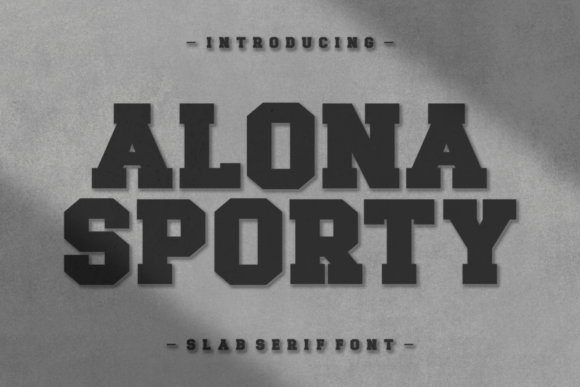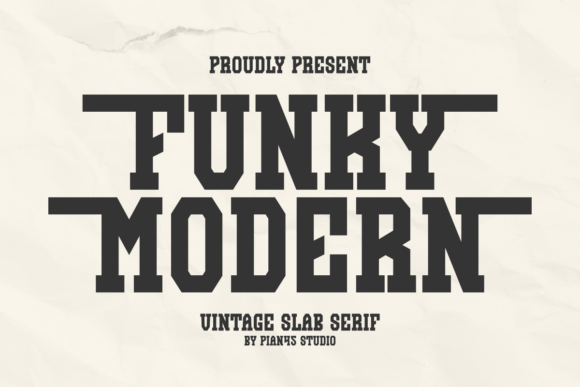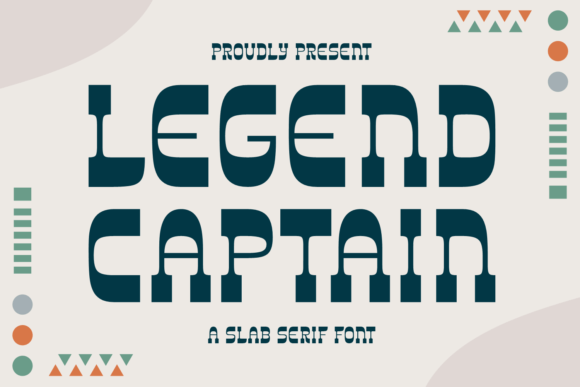
Slab Series: A Modern Slab Serif for Bold Branding
As a graphic designer, I recently embarked on a project to create a visual identity for a local café, and I decided to test Slab Series, a modern slab serif typeface that exudes authority and authenticity. With its bold and commanding presence, this font adds a touch of sophistication to any design project.
Slab Series in Logo Design and Brand Identity
One of the first steps in any branding project is logo design. I opened my design software and started experimenting with Slab Series. The font's strong, geometric lines and solid serifs made it an excellent choice for a café that wants to convey a sense of reliability and quality. I sketched out a few logo concepts, and the Slab Series font stood out, providing a perfect balance of elegance and strength.
Using Slab Series for Packaging Design and Product Labels
Next, I moved on to packaging design. The café needed labels for their coffee bags, and I wanted to ensure that the font would be both readable and visually appealing. Slab Series proved to be a great fit. Its clear, bold characters made the product information easy to read, even from a distance. The font's sophisticated look also added a premium feel to the packaging, which was exactly what the client was looking for.
Slab Series in Social Media Graphics and Editorial Design
For the café's social media graphics, I used Slab Series as the headline font. The font's commanding presence made it ideal for grabbing attention in a crowded feed. Whether it was a post about a new menu item or a special event, Slab Series helped to create a consistent and professional brand image across all platforms.
In editorial design, such as the café's menu and promotional flyers, Slab Series worked beautifully as both a display and supporting typeface. The font's boldness made it perfect for section headings, while its clean lines allowed it to blend seamlessly with other fonts in the body text. This versatility was a significant advantage, as it maintained the brand's cohesive look without sacrificing readability.
Slab Series in Website Headers and Digital Templates
When it came to the café's website, I used Slab Series in the header and key sections. The font's strong, authoritative style made the site feel more professional and trustworthy. For digital templates, such as email newsletters and online forms, Slab Series added a touch of elegance and consistency, making the café's digital presence just as impressive as its physical one.
Practical Advice for Testing Slab Series in Your Brand System
Before fully committing to Slab Series for your branding project, it's essential to test it in various contexts. Start by creating a mood board and experimenting with different font sizes, colors, and backgrounds. This will help you see how the font performs in different scenarios. Additionally, consider how Slab Series pairs with other fonts. For example, it can work well with a sans serif font for a modern, clean look, or with a script font for a more elegant, traditional feel.
Font Pairing and Additional Features of Slab Series
Slab Series offers a range of styles and weights, which can be incredibly useful for creating a comprehensive brand system. I found that the included alternates and ligatures added a unique, personalized touch to the café's branding. Additionally, the multilingual support and commercial licensing options made it a practical choice for a business with diverse needs.
In conclusion, Slab Series is a versatile and sophisticated slab serif that can elevate any design project. From logos and packaging to social media and web design, this font brings a bold, authoritative, and elegant presence. If you're looking for a typeface that can make a statement and add a touch of class to your brand, Slab Series is definitely worth considering.